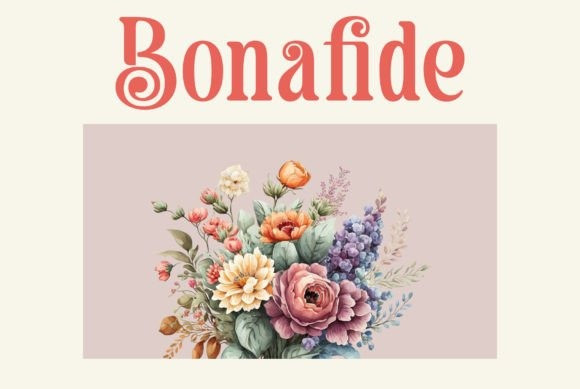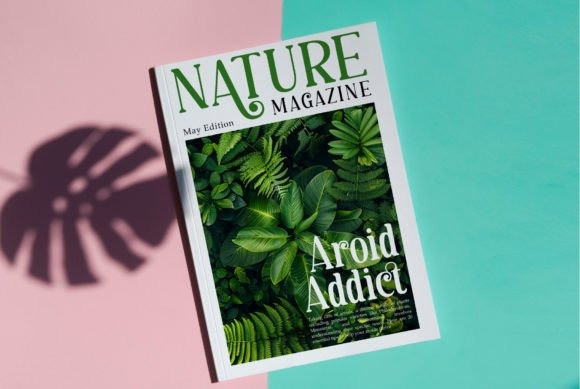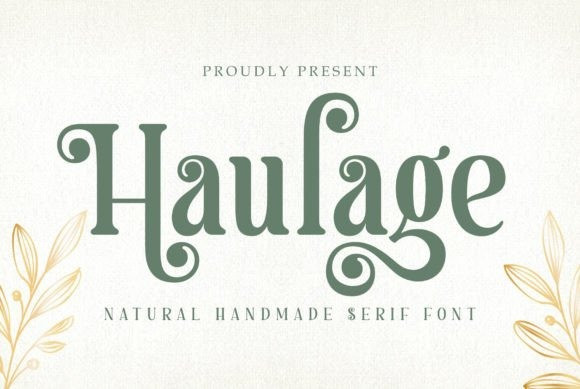
Haulage Font
Haulage Font  a natural handmade serif font that exudes timeless elegance and charm. Crafted with meticulous attention to detail, Haulage boasts a variety of unique, natural, and classic characters, especially in its ligatures and alternates. Each letter is designed to capture the essence of vintage aesthetics, making it a perfect choice for projects that require a touch of classic sophistication.
The classic and vintage look of Haulage makes it incredibly versatile, ideal for branding, logotypes, magazines, and more. Its distinctive characters and elegant serifs bring a sense of history and craftsmanship to any design, ensuring your work stands out with a refined and polished appearance. Whether you’re creating a brand identity, designing a magazine cover, or crafting a logotype, Haulage provides the perfect blend of tradition and creativity.
Embrace the natural beauty and classic appeal of Haulage, and let your designs tell a story of elegance and timelessness. With its unique ligatures and alternates, this font offers endless possibilities for creating stunning, memorable visuals that leave a lasting impression. Elevate your design projects with Haulage, where vintage charm meets modern versatility.